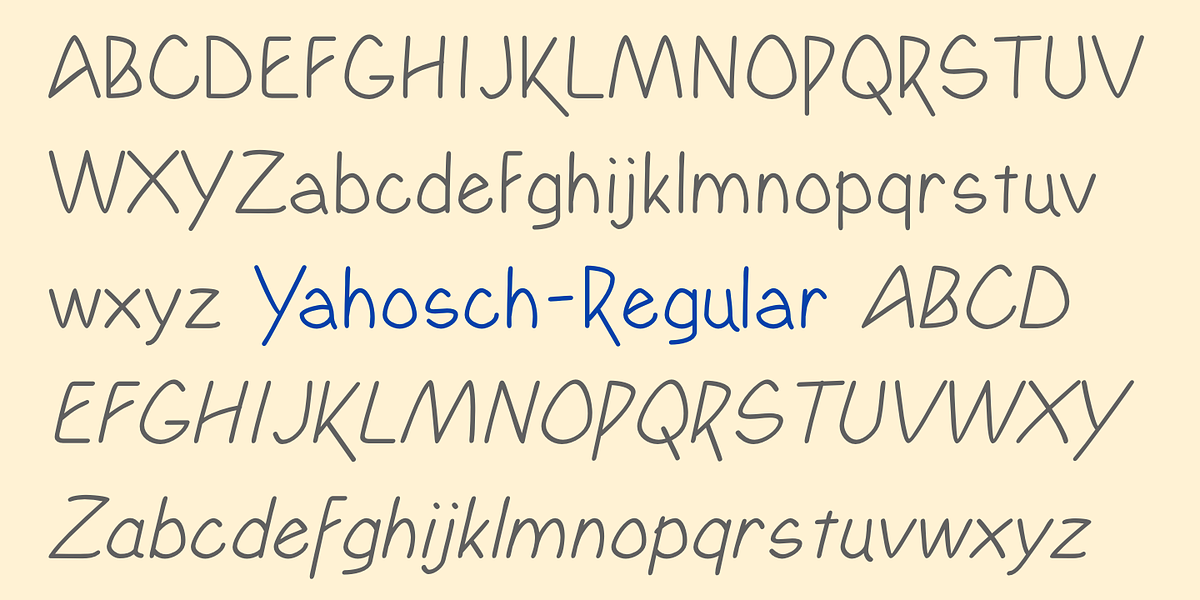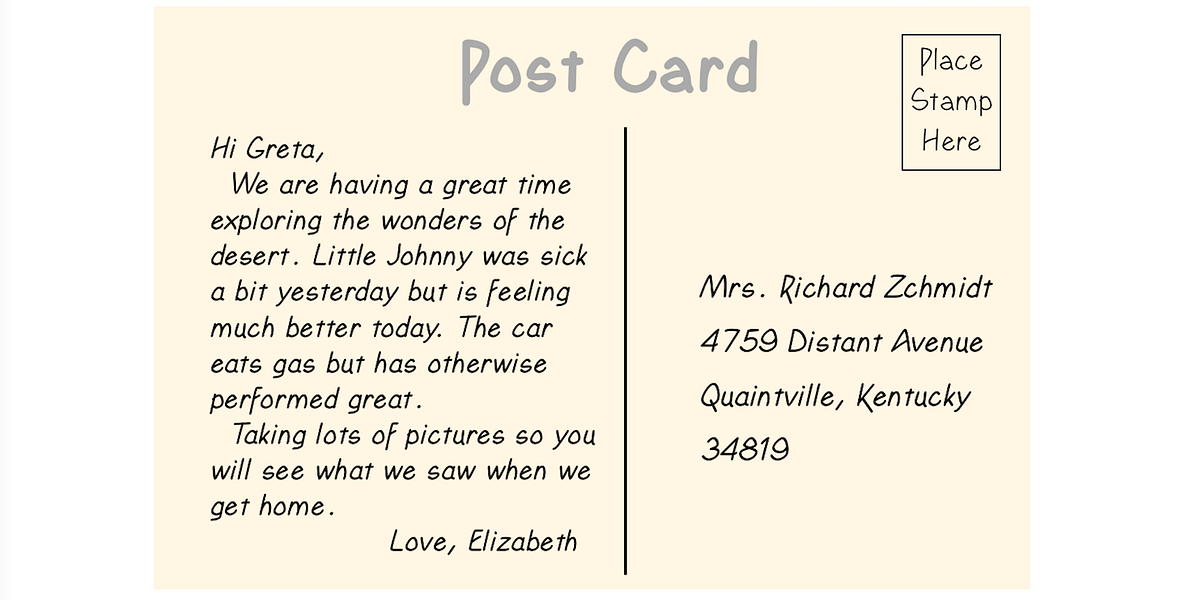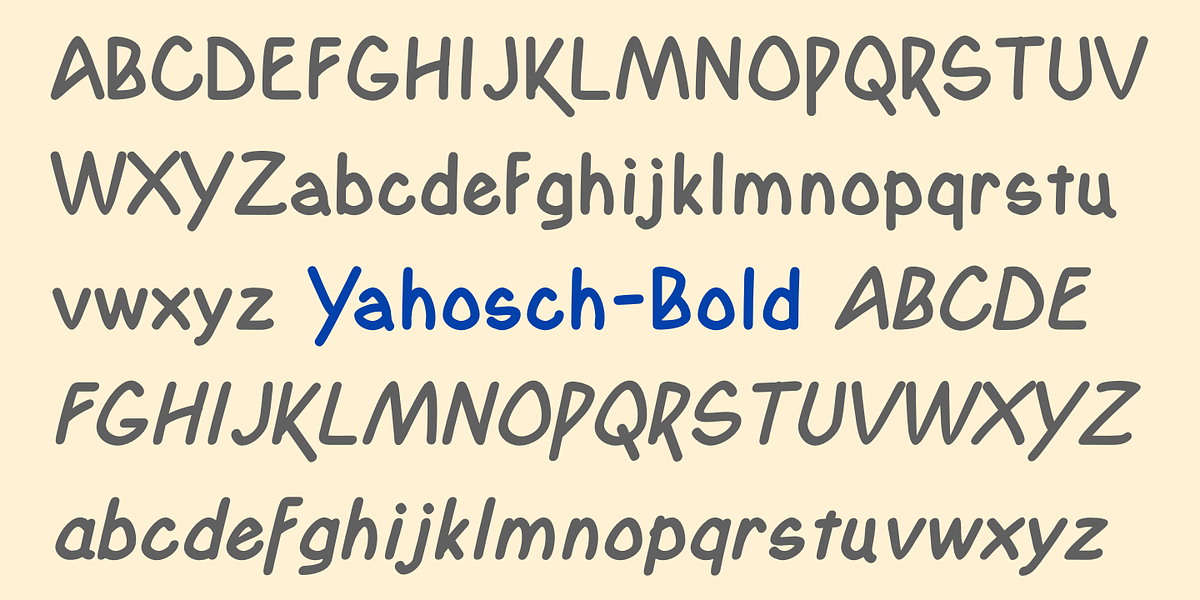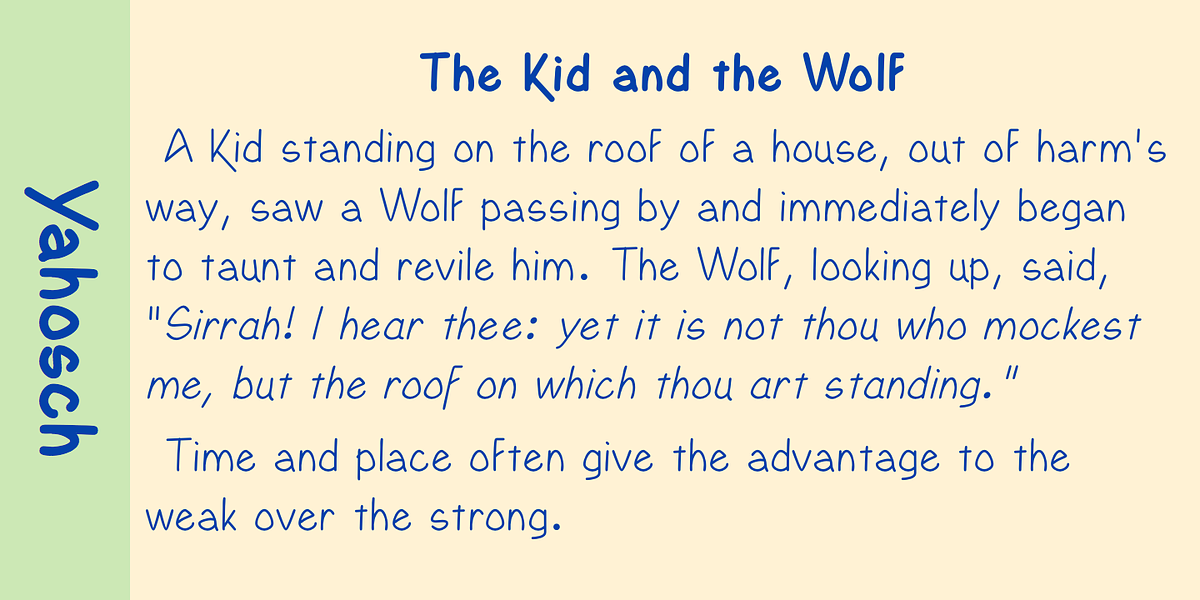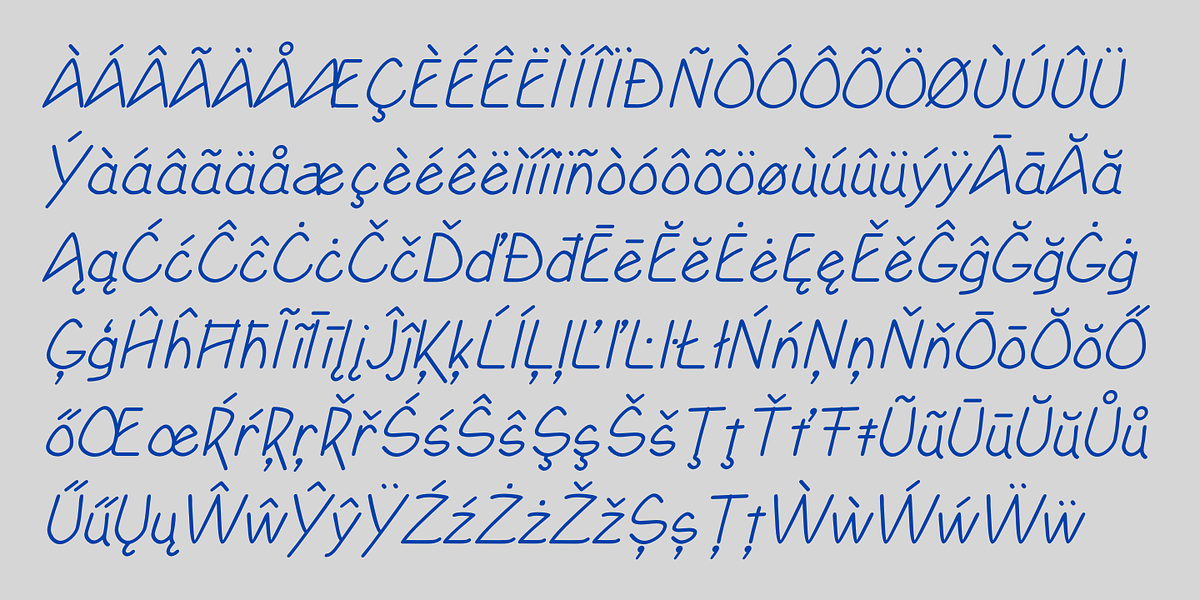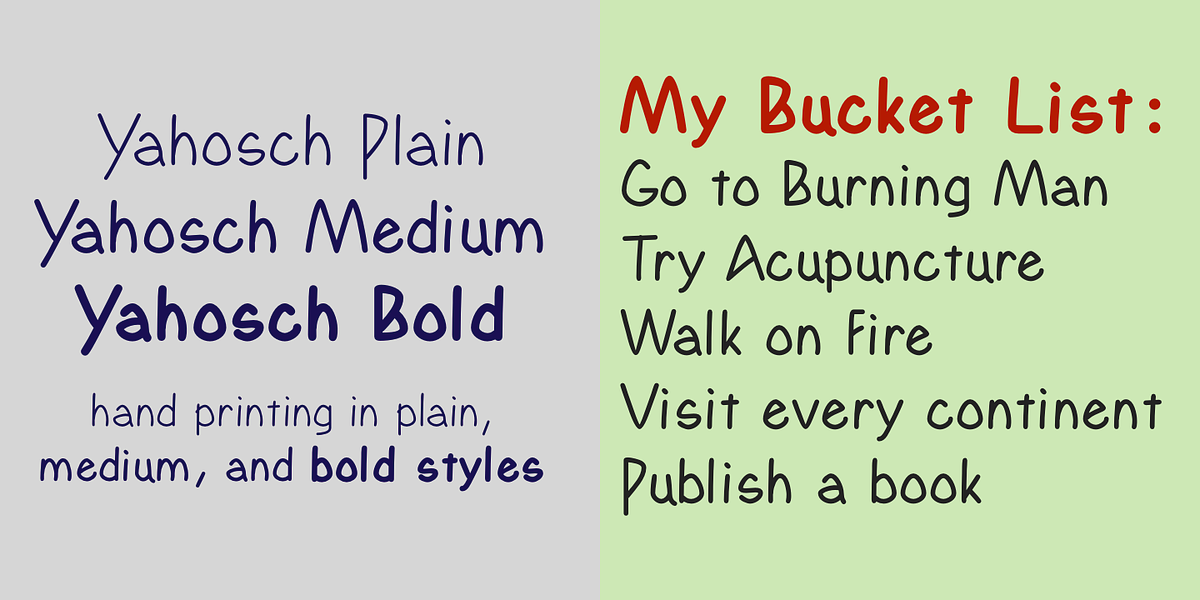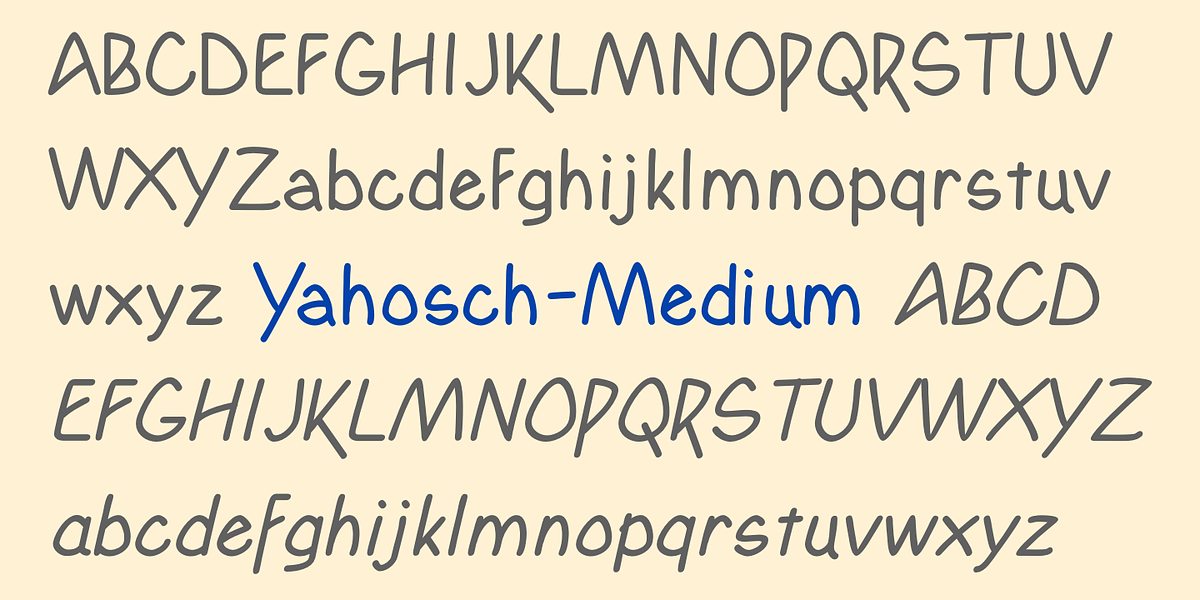
Yahosch
Yahosch is a script typeface designed to mimic casual handwriting. Its distinctive feature is the use of egg-shaped circular elements for letterforms, with the larger portion of the oval positioned at the bottom. This gives the font a soft and rounded appearance. Yahosch comes in three weights – thin, regular, and bold – each accompanied by an italic style. The thin weight is particularly legible even at smaller sizes, making it suitable for applications where readability is crucial.